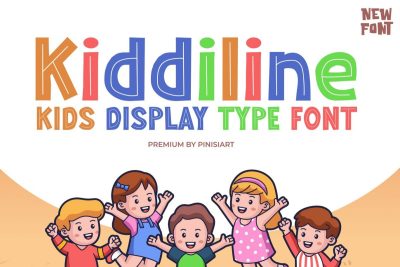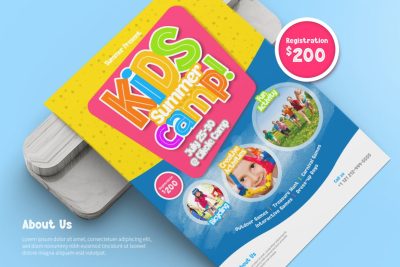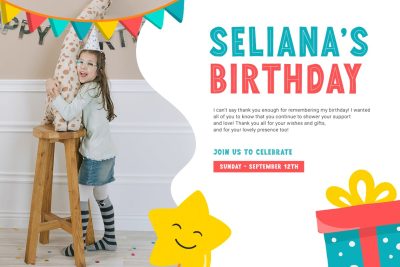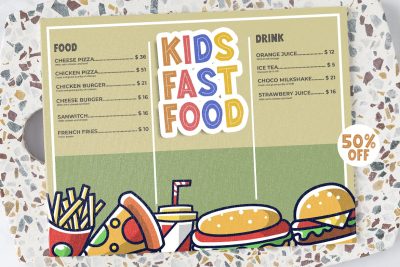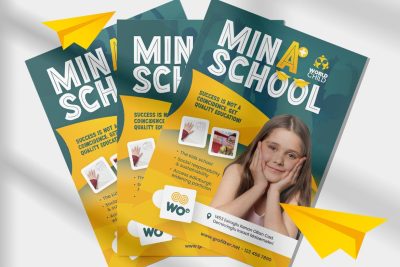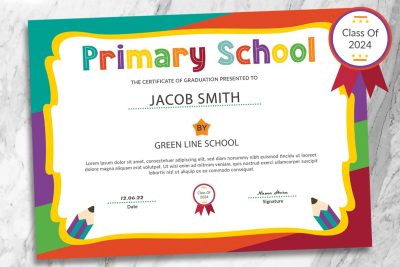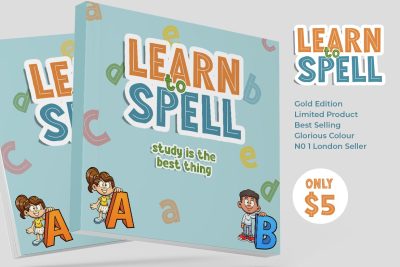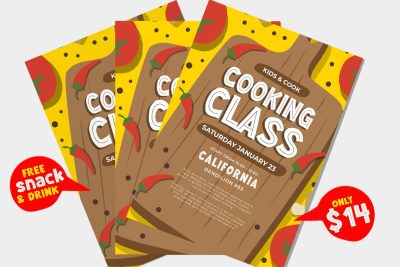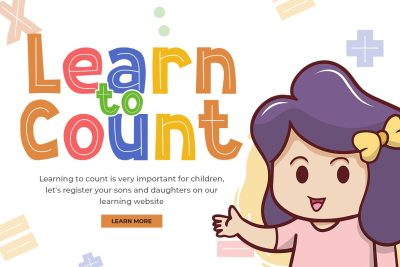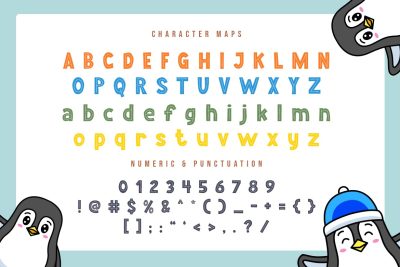
Kids font Kiddiline is a cheerful and playful display typeface that captivates young audiences with ease. Its bold, colorful letterforms and rounded edges immediately add energy and fun to any project. Moreover, the font combines readability with a whimsical style, making it ideal for children as well as adults working on creative projects.
Designed specifically for childrenโs projects, Kiddiline works exceptionally well across various mediums. For example, whether you are designing for print, digital platforms, or interactive content, this versatile font maintains its charm and clarity. Additionally, its playful curves and friendly shapes are crafted to inspire creativity and excitement in every design. As a result, it becomes a perfect choice for projects aiming to spark imagination and joy.
Furthermore, the fontโs bright and lively style not only grabs attention but also keeps the audience engaged. It is particularly effective for storybooks, activity sheets, and educational presentations. With Kids font Kiddiline, your message is always delivered in a fun, memorable, and visually appealing way.
Kiddiline is perfect for a wide range of creators and professionals working on children-focused projects.
- Educators and Teachers
For educators, Kiddiline is an excellent tool for making classroom materials more engaging. For instance, its colorful and bold design works perfectly for posters, flashcards, and worksheets, helping students enjoy the learning process. Additionally, the playful design helps capture attention and keeps young learners focused on the content. - Childrenโs Book Authors and Illustrators
Childrenโs book creators will find Kiddiline especially useful. Not only does it enhance story titles and chapter headings, but it also complements whimsical illustrations. Moreover, its cheerful and approachable style adds a magical touch to books, making them more attractive and enjoyable for young readers. - Graphic Designers and Branding Experts
Graphic designers who specialize in childrenโs products will appreciate the versatility of Kiddiline. For example, it works beautifully on toy packaging, board game logos, and event promotional materials. Furthermore, it is ideal for creating vibrant and friendly branding for kid-centric businesses like daycare centers, childrenโs apparel brands, or educational programs. - Parents and DIY Creators
Lastly, parents and DIY creators can use Kids font Kiddiline to bring a creative flair to personal projects. For example, itโs perfect for designing custom birthday invitations, banners, or scrapbook projects. Additionally, its playful style adds a fun and festive touch to any celebration or craft.
In conclusion, Kids font Kiddiline is a must-have for anyone creating projects aimed at young audiences. Not only does it combine creativity with readability, but it also adds joy and excitement to every design. Whether youโre working on educational tools, entertaining content, or festive decorations, this font helps your creations connect with kids in an engaging way.